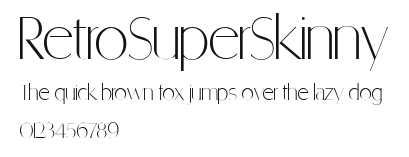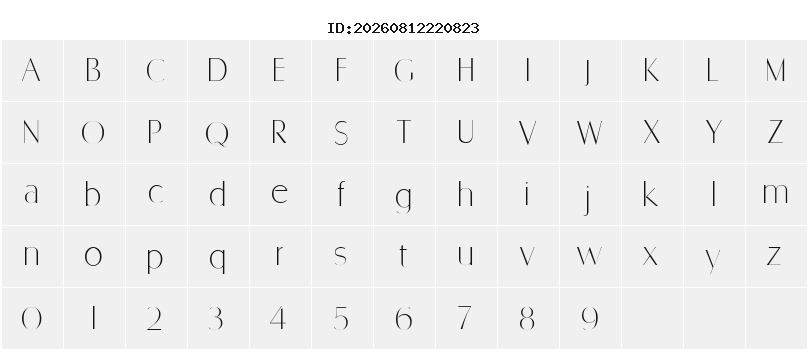
• Font Name: RetroSuperSkinny
• Font ID: Macromedia Fontographer 4.1 RetroSuperSkinny
• Full Font Name: RetroSuperSkinny
• Version: Macromedia Fontographer 4.1 10/6/00
• PostScript Name: RetroSuperSkinny
• Character Count: 86
• Copyright: Generated by Fontographer 4.1
About RetroSuperSkinny.ttf
RetroSuperSkinny.ttf is a modern, elegant sans-serif font designed for ultimate readability and visual harmony. Perfect for branding, headlines, web design, and print materials.